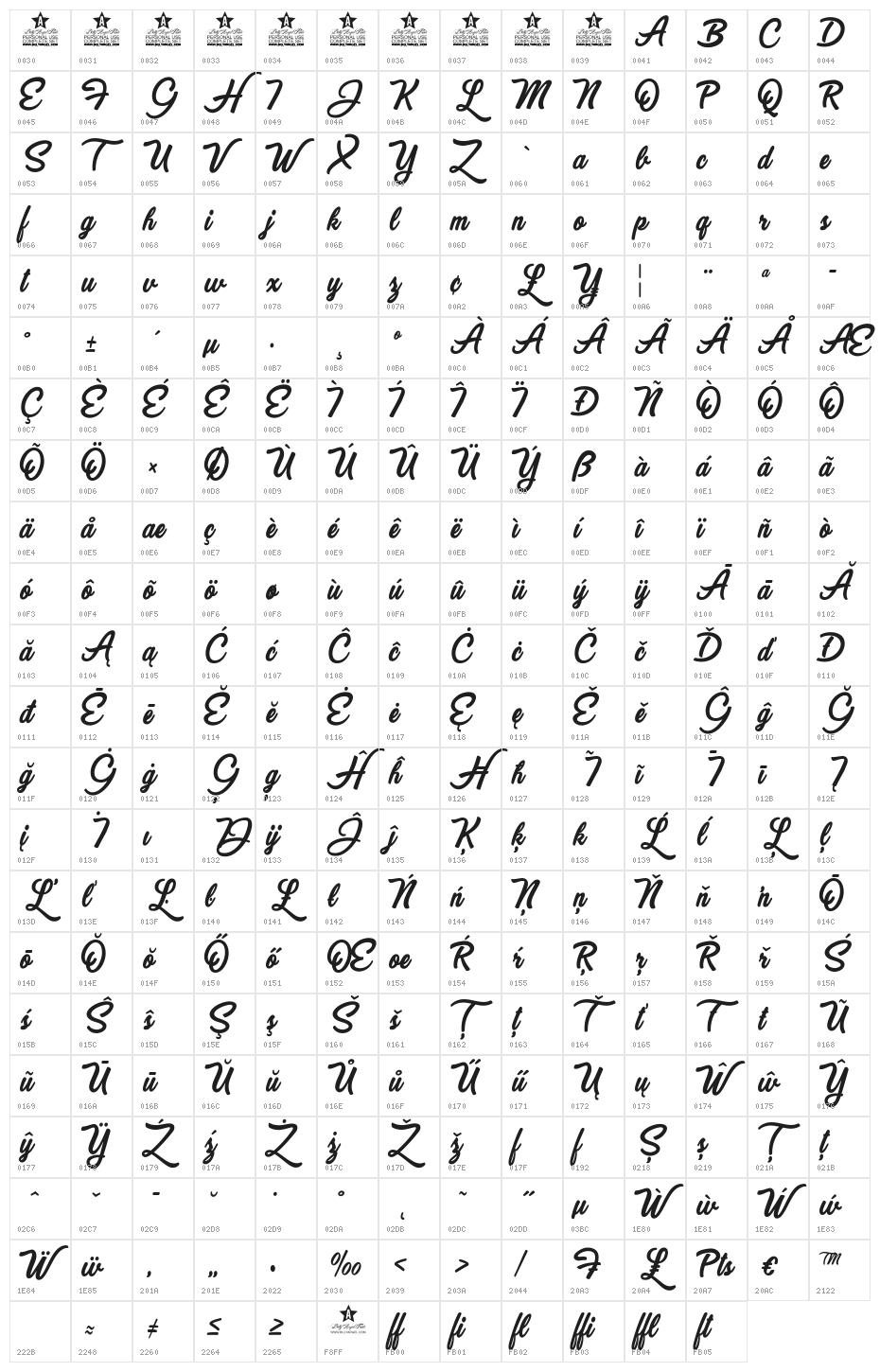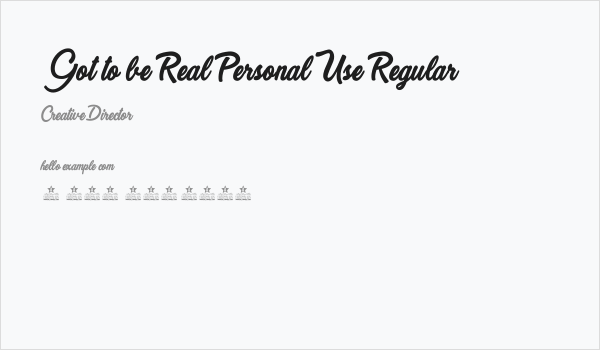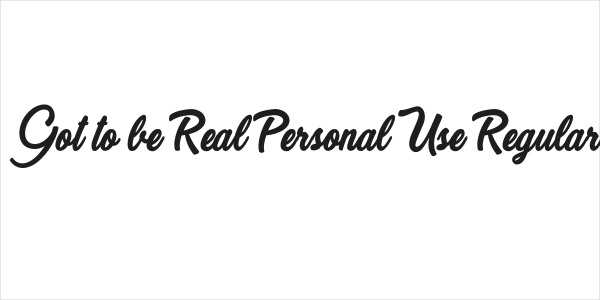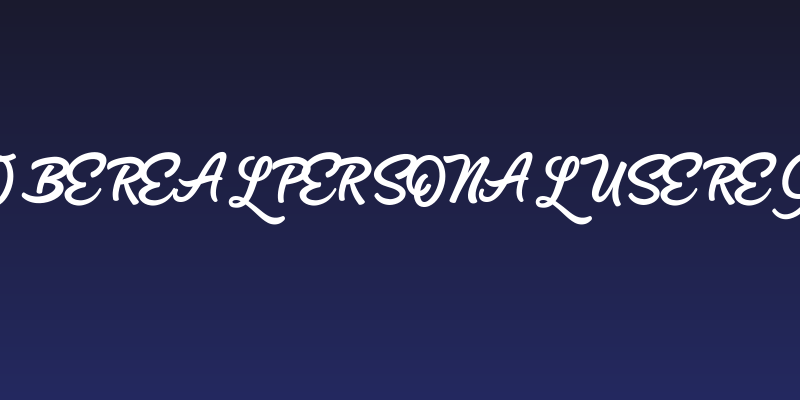
Got to be Real Personal Use Regular Font
Got to be Real Personal Use Regular Description
This font features a bold, cursive style with a strong emphasis on fluidity and elegance. The uppercase letters are characterized by sweeping curves and loops, giving them a dynamic and expressive appearance. The lowercase letters maintain a consistent flow, with rounded forms and smooth connections between strokes. The overall design is reminiscent of traditional calligraphy, yet it retains a modern touch with its clean lines and balanced proportions. This font is well-suited for creating eye-catching headlines or logos that require a touch of sophistication and flair.